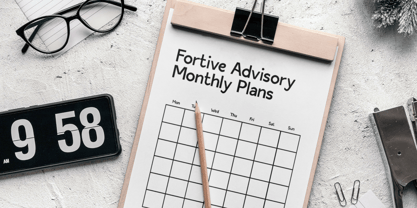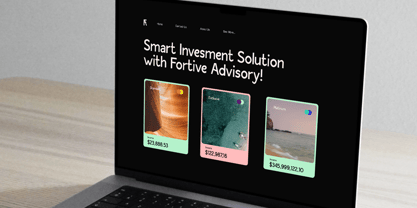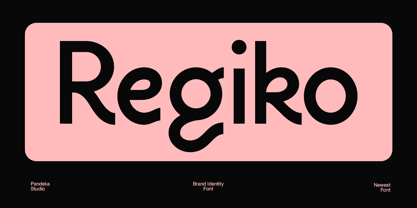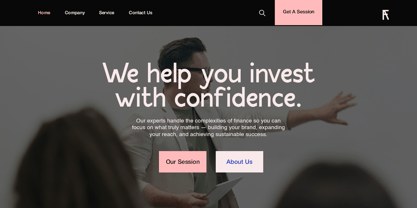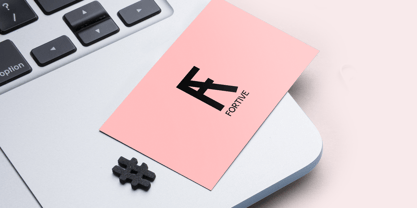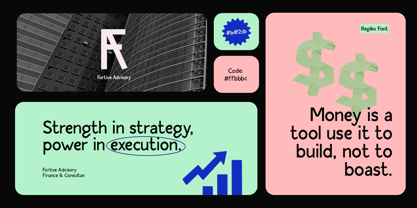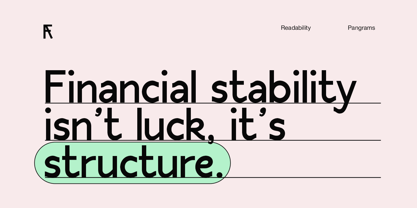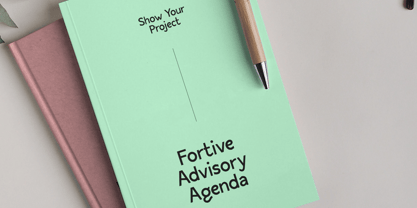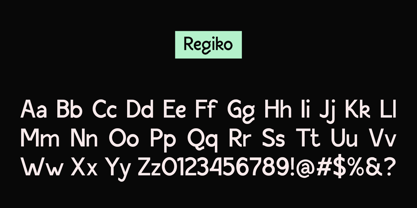
Regiko
by Pandeka Studio
The Regiko Font Family was designed by Sagara Nararya and published by Pandeka Studio. Regiko contains 1 styles. More about this family
Regiko is a clean and modern sans serif font crafted for branding and corporate identity projects. Its rounded letterforms and balanced proportions create a friendly yet confident impression, making it ideal for businesses, startups, and creative professionals seeking a fresh and trustworthy look.
This font comes in one style: Regular, featuring uppercase, lowercase, numerals, and punctuation. Regiko brings simplicity and versatility to your visual design, making it perfect for logos, presentations, packaging, and digital branding projects.
• 1 Style: Regular
• Full Character Set: Uppercase, lowercase, numbers, symbols, and punctuation
Designers: Sagara Nararya
Foundry: Pandeka Studio